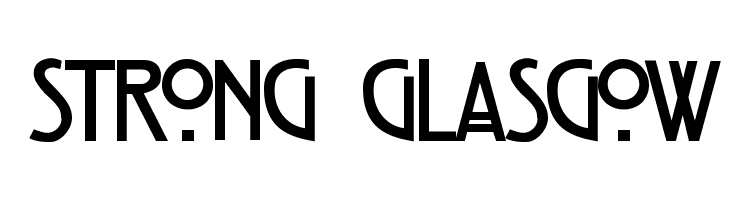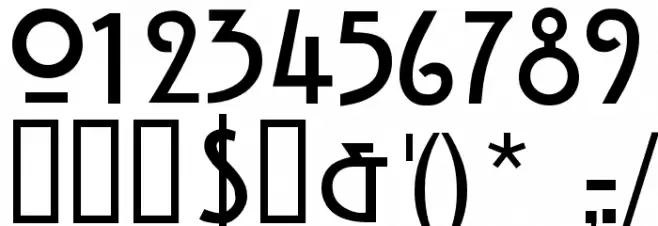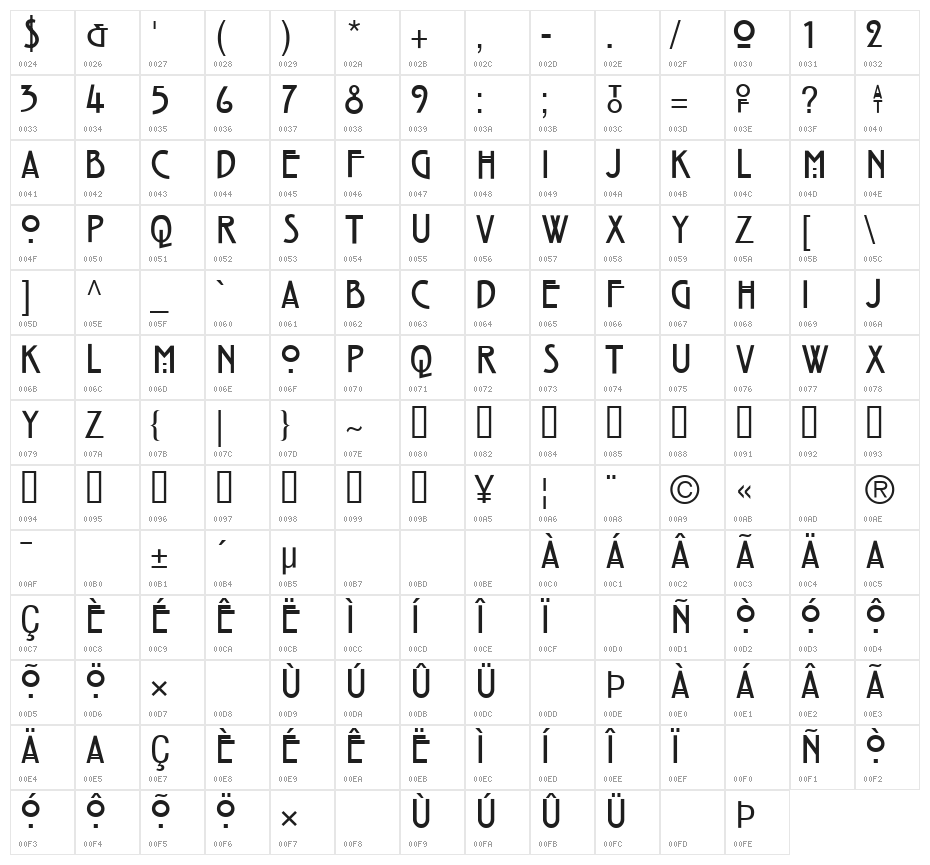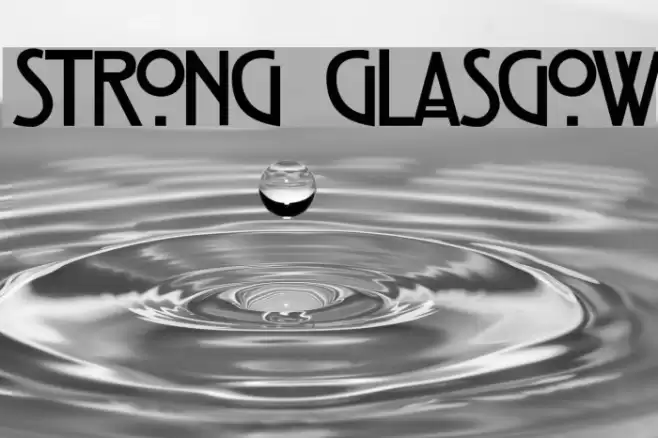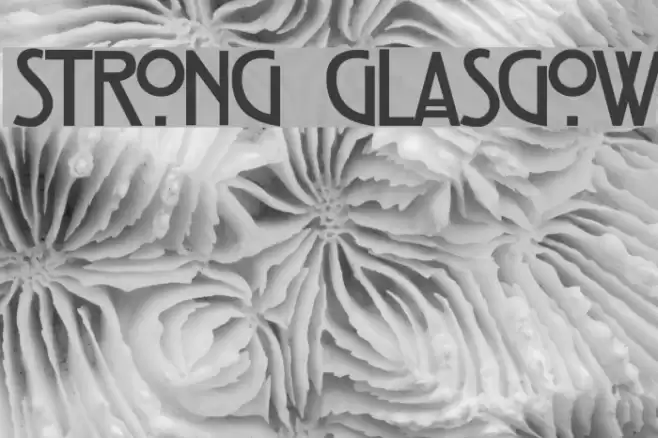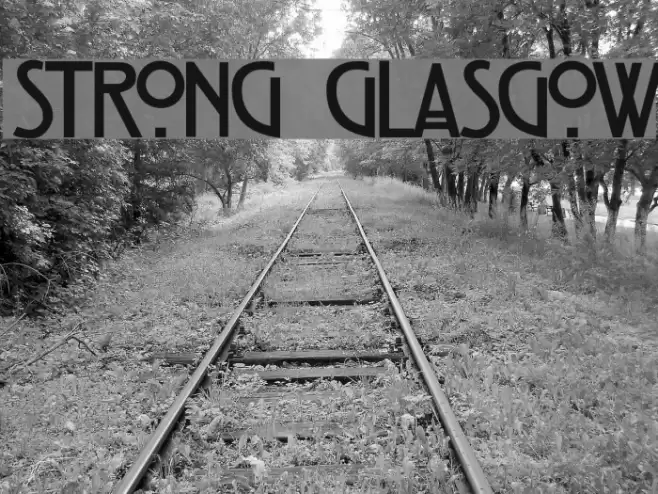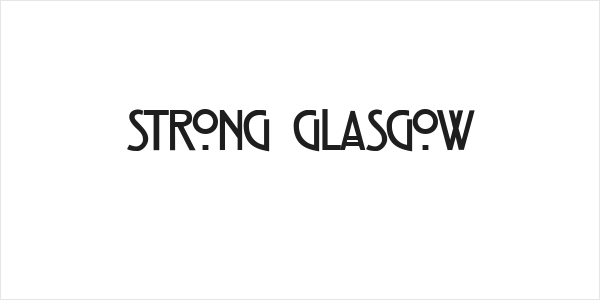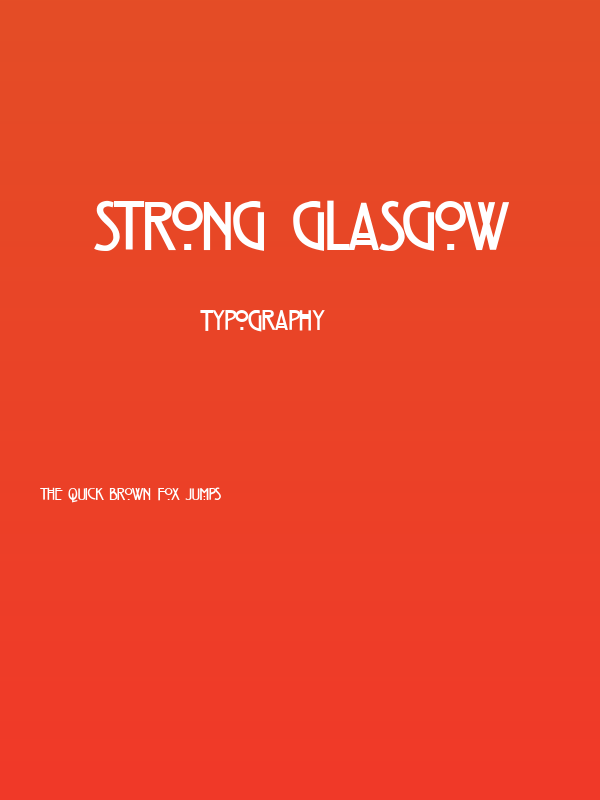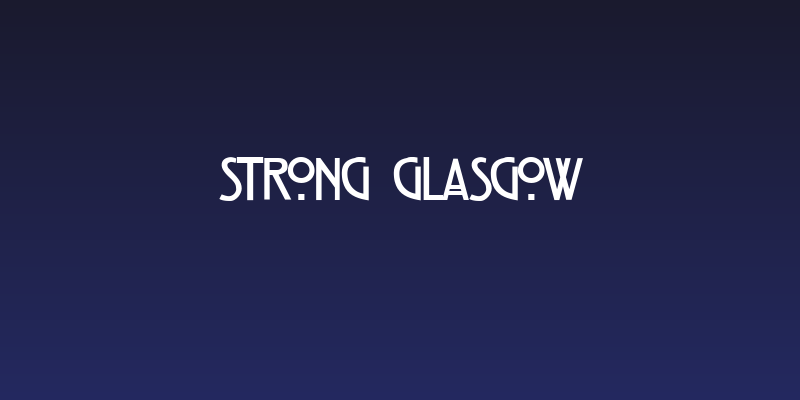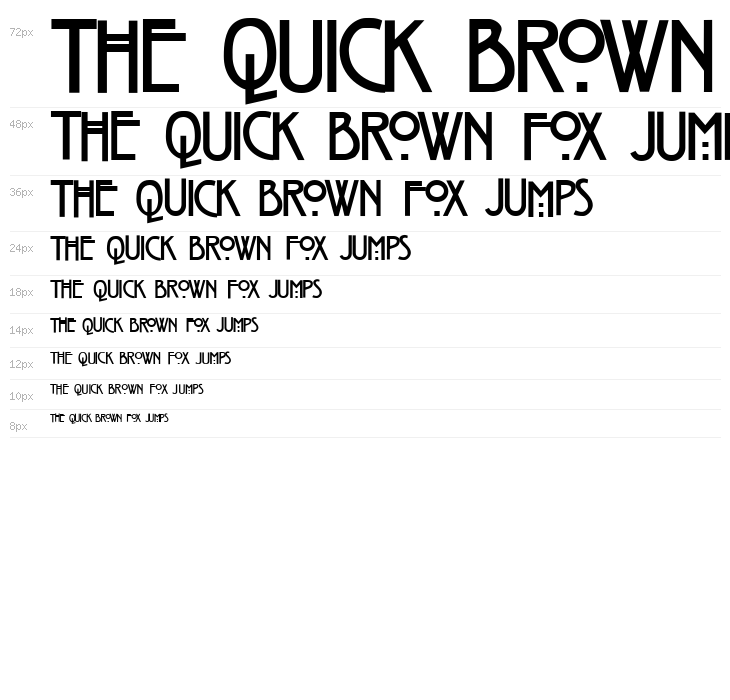
Strong Glasgow Font
Strong Glasgow Description
This font features a bold and geometric design with clean, sharp lines and a modern aesthetic. The characters are well-defined with a consistent stroke weight, giving it a strong and assertive presence. The uppercase letters are particularly striking, with angular forms and a sense of symmetry. The numerals and special characters maintain the same geometric style, ensuring uniformity across all glyphs. This font's design is both contemporary and versatile, making it suitable for a variety of applications.